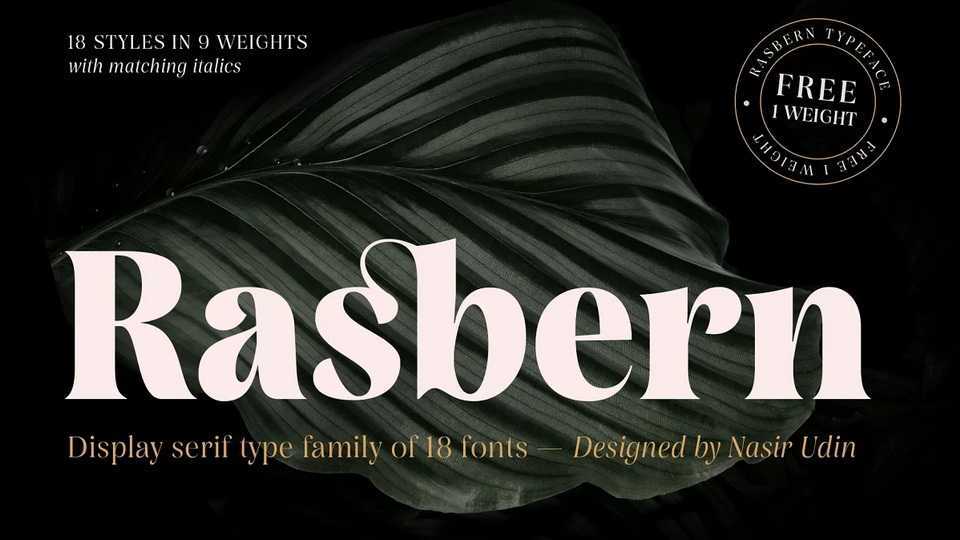
Download Rasbern font, a display serif typeface with high contrast and refreshing looks. Rasbern offers many possibilities to be applied in many graphic or editorial projects.
Designer: Nasir Udin